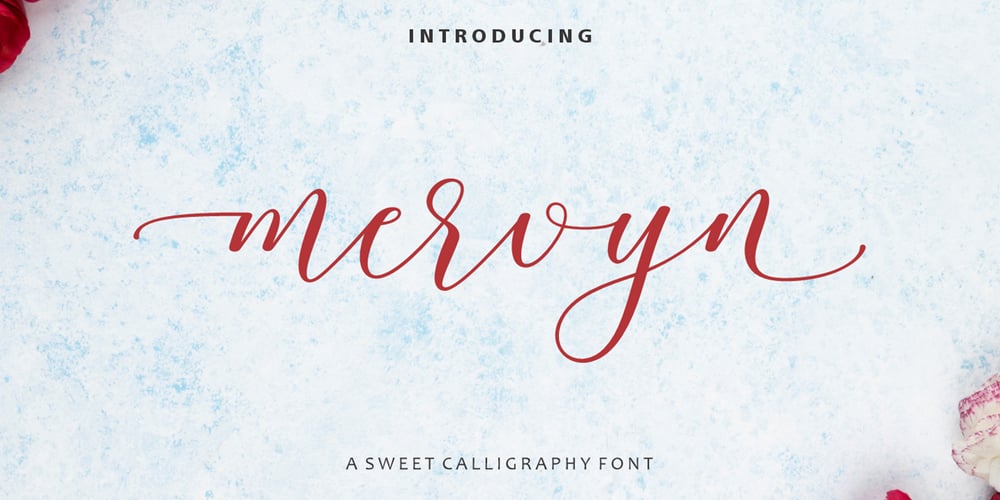
Mervyn
Mervyn font
Mervyn Font Family was designed by Yusliana M Isa and published by Gian Studio. Mervyn contains 1 styles and family package options. Mervyn is likely a font designed to emulate the look of traditional calligraphy. Calligraphy fonts are characterized by elegant, flowing strokes that mimic the appearance of handwritten script produced by a skilled calligrapher. Variant might refer to a specific style or design within the broader category of calligraphy fonts. These fonts are often used for formal invitations, wedding stationery, certificates, and other designs where a sophisticated and classic aesthetic is desired.Mervyn otTo enable the OpenType Stylistic alternative, you need a program that supports OpenType features such as Adobe Illustrator CS, Adobe Indesign & CorelDraw X6-X7, Microsoft Word 2010 or later.There are additional ways to access the alternative/swash, using the Character Map (Windows), Nexus Font (Windows), Font Book (Mac) or a software program such as PopChar (for Mac and Window).This font has provided PUA unicodeThank You…